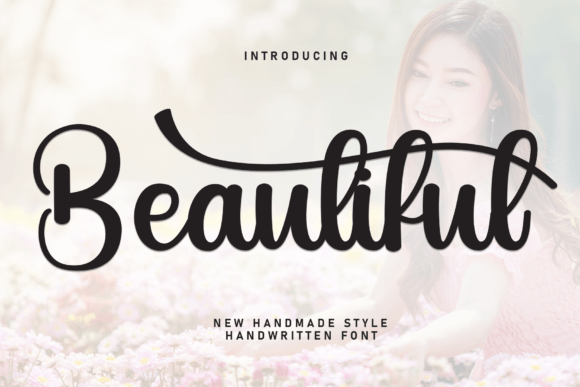
Adding a Personal Touch with Beautiful Font
Do you remember the first time you stumbled upon a beautiful handwritten invitation that made you feel like you were part of something special? Maybe it was a wedding invitation, a birthday card, or a heartfelt letter from a loved one. Whatever it was, you likely felt a rush of excitement and joy. That’s exactly the kind of feeling you can evoke with the Beautiful Font, a sweet and friendly handwritten display font that adds a touch of whimsy and personality to any design.
Whether you’re a designer looking to create unique and memorable designs or a crafter wanting to add a personal touch to your handmade projects, the Beautiful Font is an invaluable asset. Its cute and fun style makes it perfect for writing wedding invitations, cards, or any other design that needs a playful touch.
Beautiful Font Key Features
- Unique Characteristic: Includes a built-in ligature feature for improved readability and aesthetic appeal
Designer Review: Beautiful Font
Overall, I think Beautiful Font has some great qualities that make it a solid choice for designers. ✨
- Beautiful Font offers a wide range of styles and weights, making it suitable for various design projects.
- The font is highly legible, even at smaller sizes, which is essential for web and mobile design.
- The font’s aesthetic is modern and sleek, perfect for contemporary designs.
- It’s highly customizable, allowing designers to fine-tune the font to suit their specific needs.
While Beautiful Font is a great choice, it’s not perfect. ⚠️
- The font may not be suitable for traditional or formal designs, as it’s more modern and trendy.
- Some users may find the font too bold or overpowering, depending on the context.
- The font’s high customization options can be overwhelming for less experienced designers.
Overall, I’d say Beautiful Font is a solid choice for designers looking for a modern, legible font with a wide range of customization options. While it may not be suitable for every project, it’s definitely worth considering for contemporary designs.
For best results, use Beautiful Font in headings and titles to create a visually appealing design.
Use Beautiful Font to create custom typography and add a touch of elegance to your designs.
Use Beautiful Font to add a touch of sophistication to your presentations and documents.
Beautiful Font is ideal for:
- Book covers and publishing materials
Remember to use Beautiful Font consistently throughout your design to create a cohesive and professional look.